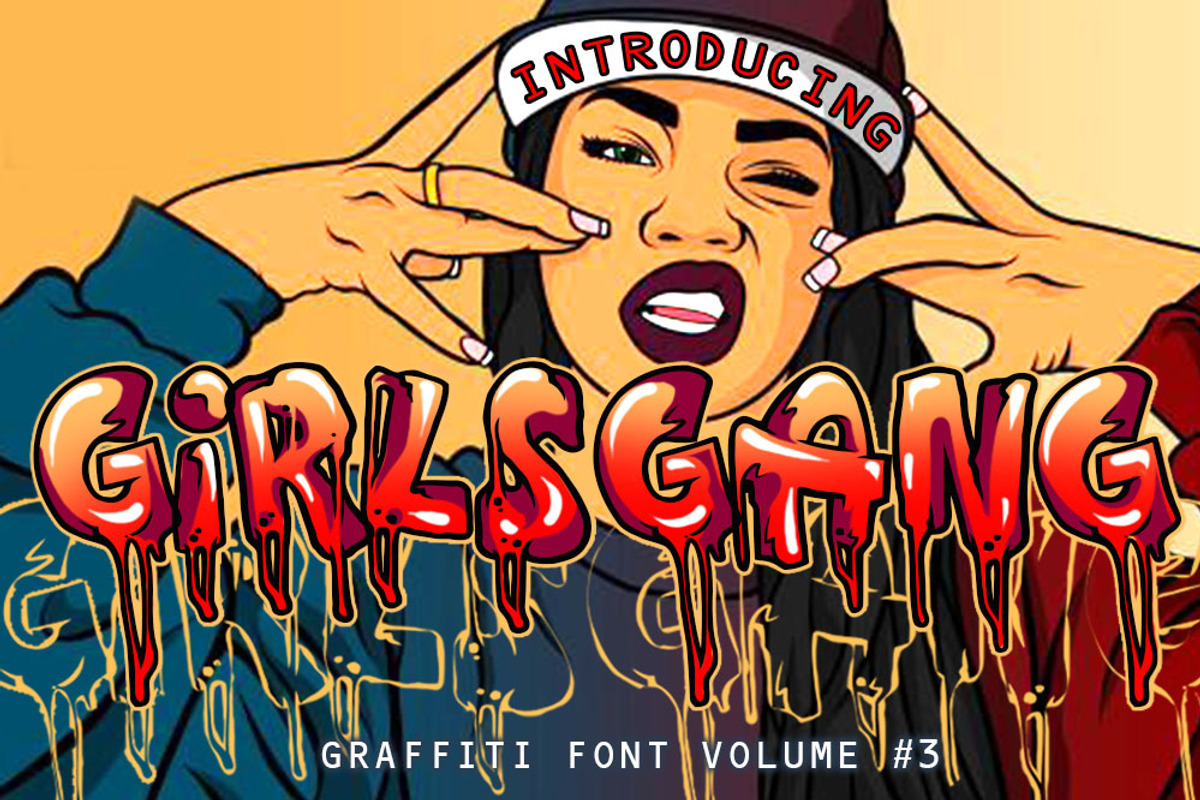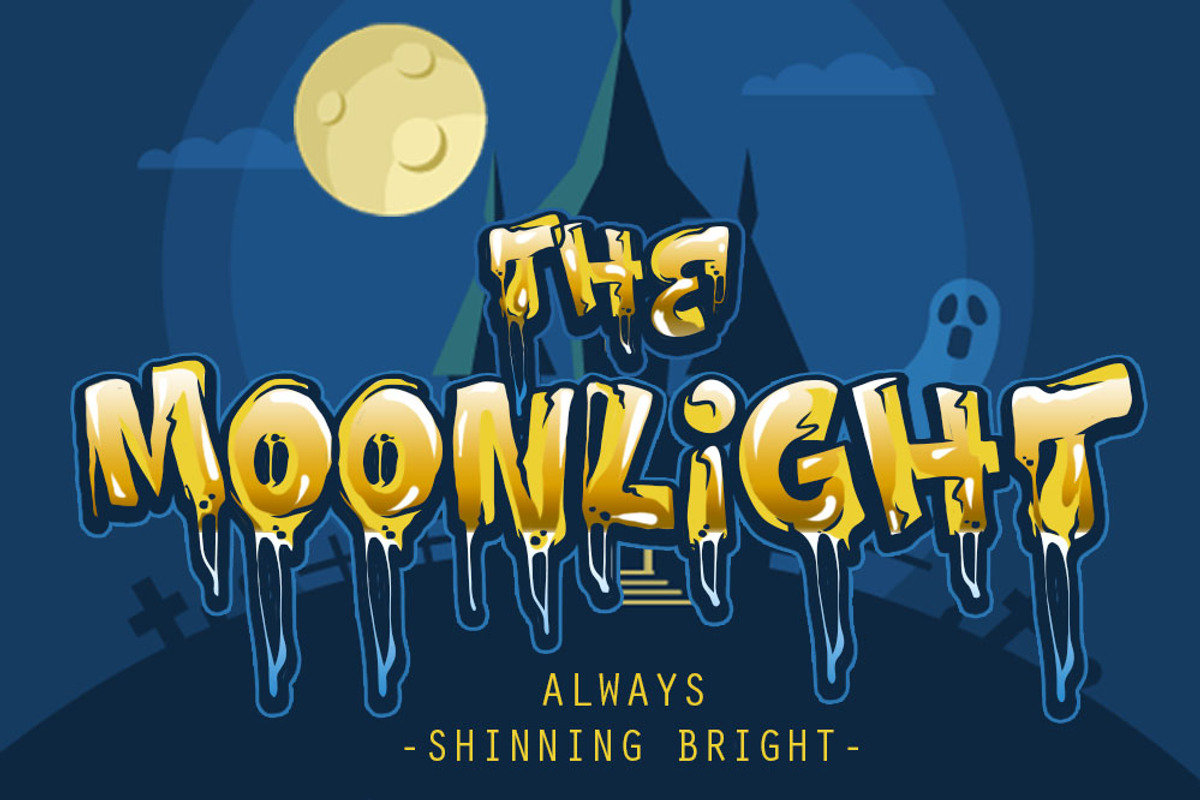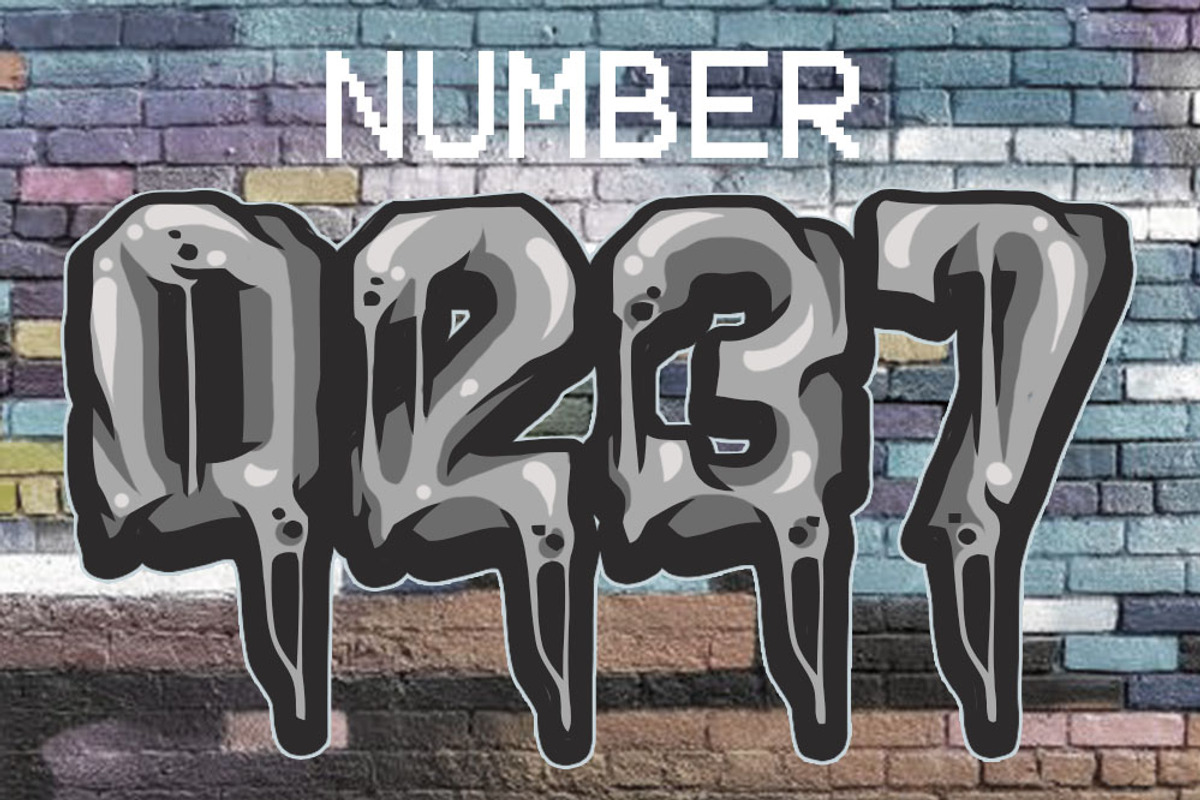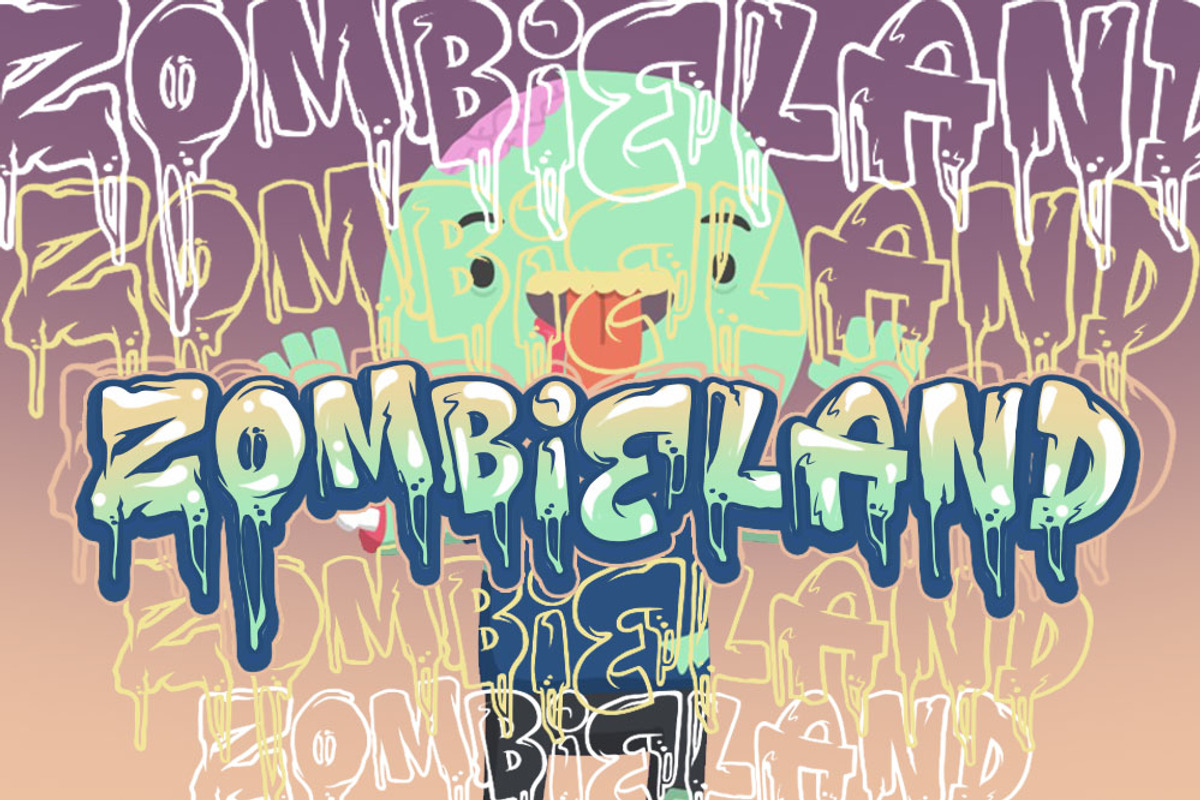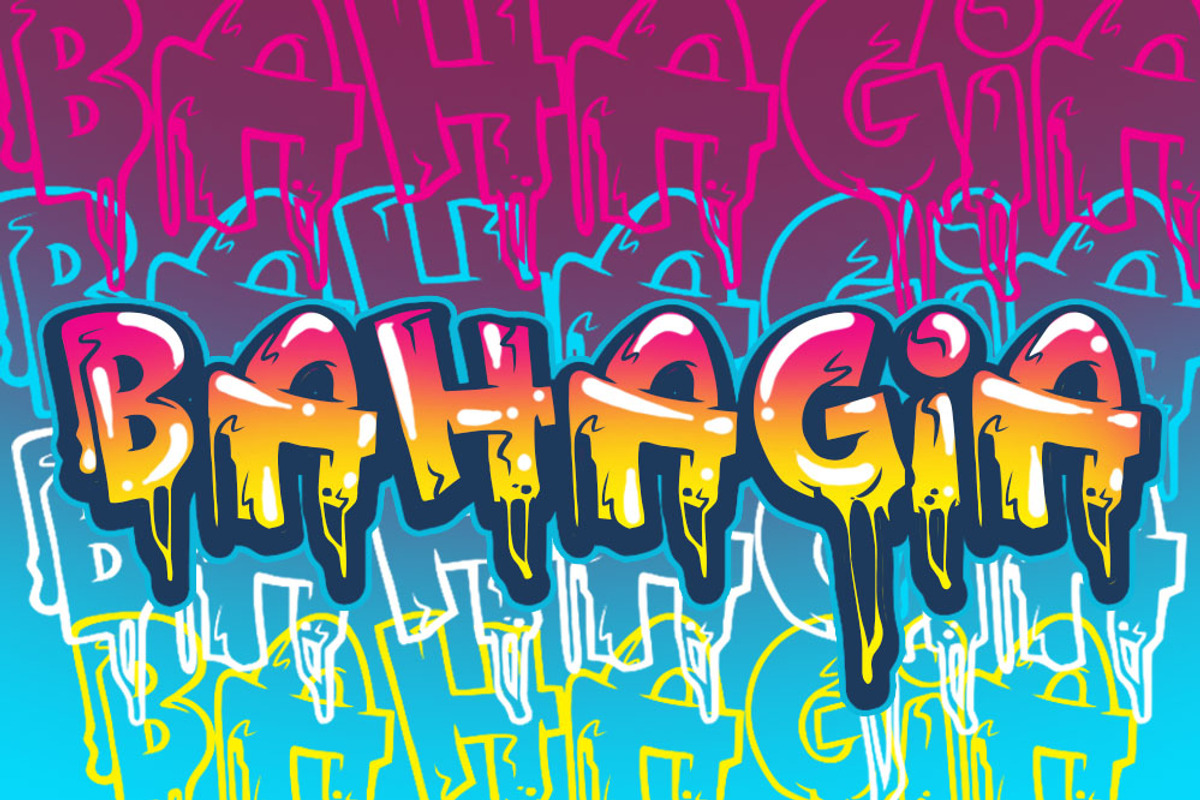
GIRLS GANG ( GRAFFITI FONT #3 )
hello everyone, I introduce the latest font that I made. I name the girls gang. This font is available in format, OTF, TTF. and has features including, uppercase, lowcase, numeral & punctuations. This font is a line art font that you can color as you like. very easy to use. of course anyone can use this font with their creativity. also visit volume 1 & 2 graffiti fonts as my best sales.